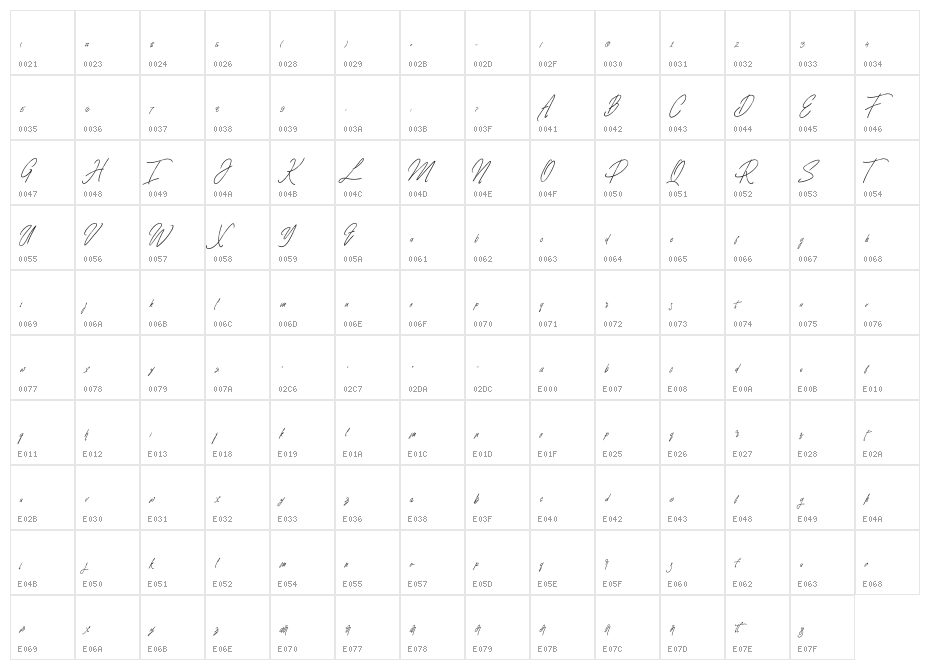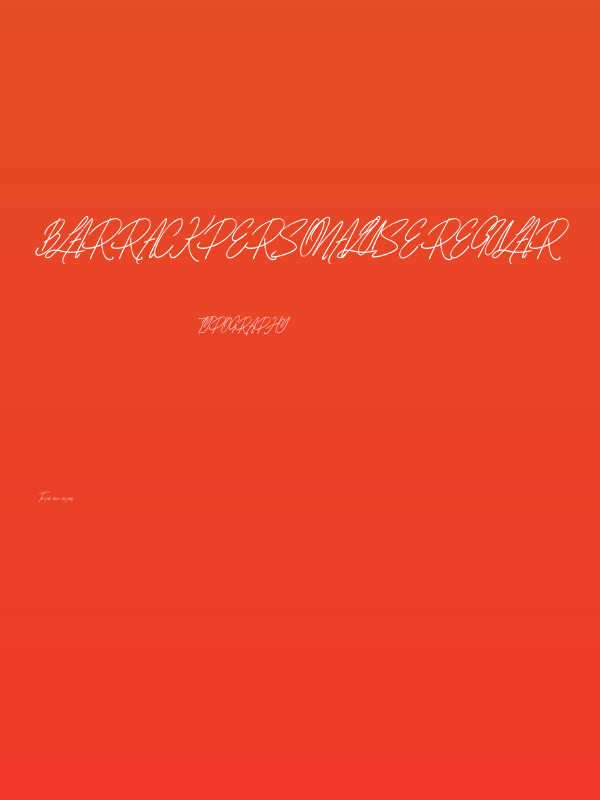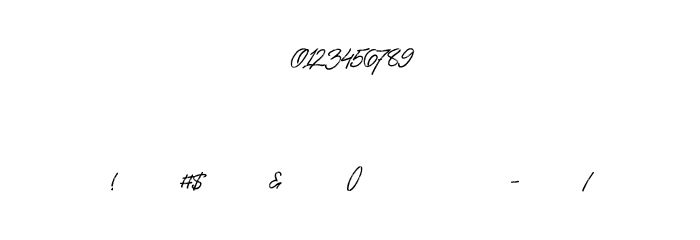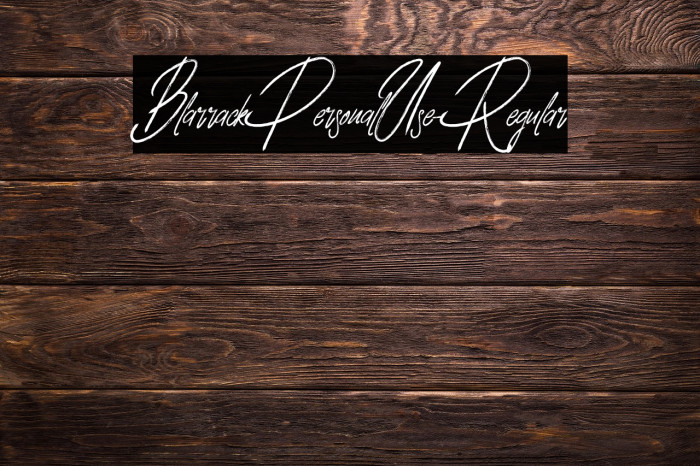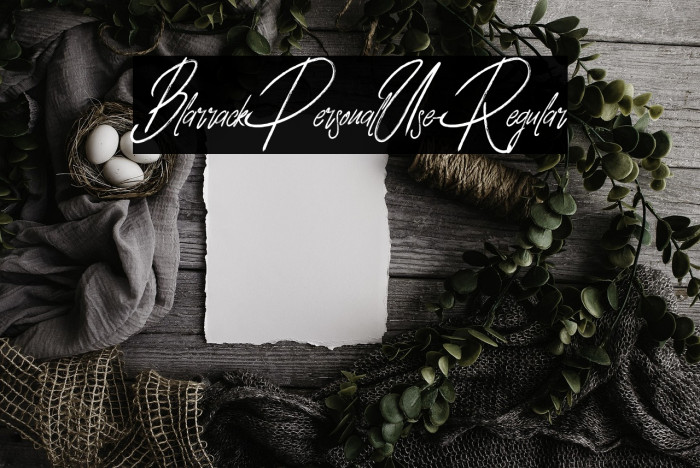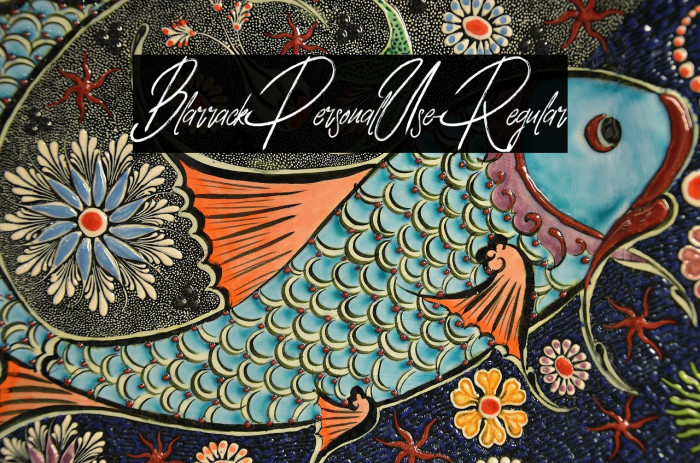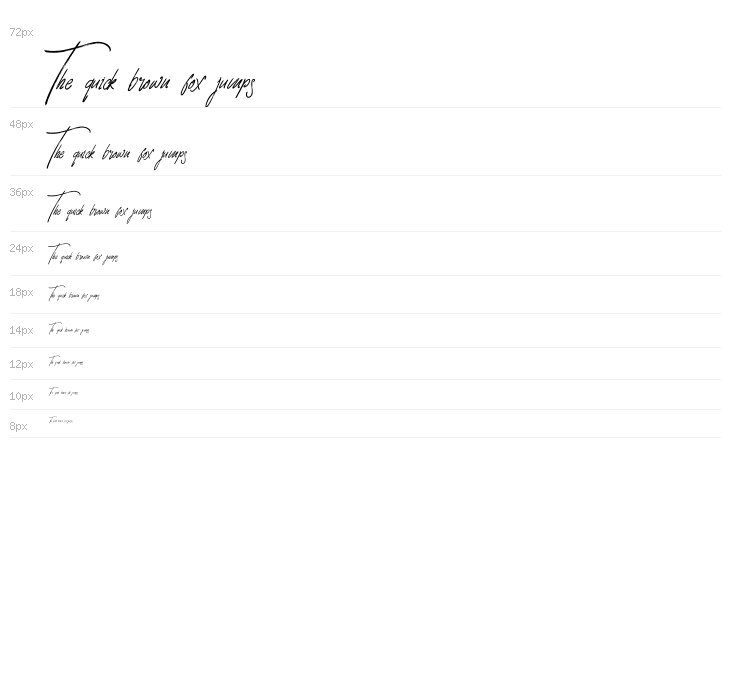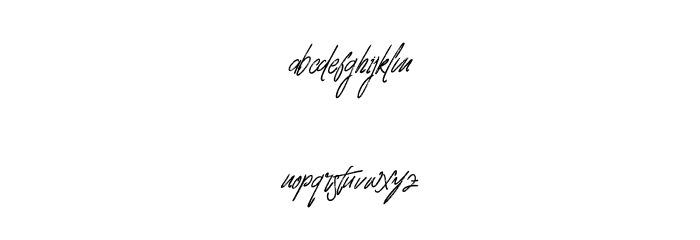
BlarrackPersonalUse-Regular Font
BlarrackPersonalUse-Regular Description
This font exhibits a flowing, cursive style with elegant, elongated strokes that give it a sophisticated and artistic appearance. The uppercase letters are particularly ornate, featuring intricate loops and swirls that add a touch of elegance and flair. The lowercase letters maintain a consistent style, with smooth connections between characters that enhance readability while preserving the decorative nature. The numerals and special characters are designed to match the overall aesthetic, ensuring a cohesive look across all text. This font is ideal for projects that require a personal, handwritten touch, such as invitations, greeting cards, or artistic branding.
| Use Case | Logos, Invitations, Artistic Branding |
| Proposed Projects | Ideal for wedding invitations, personal branding, greeting cards, and artistic projects. |